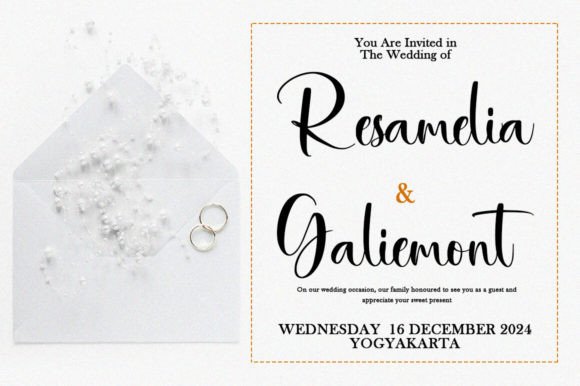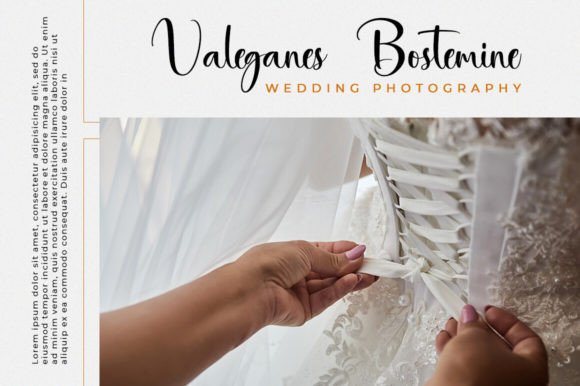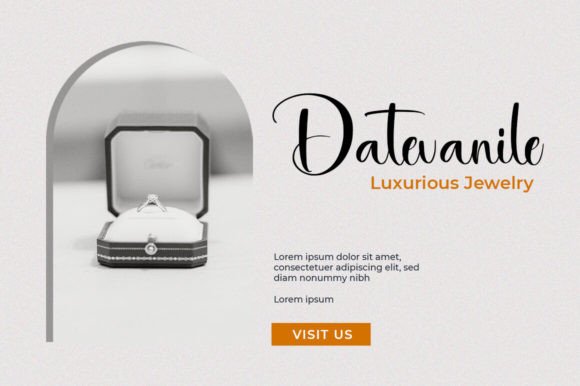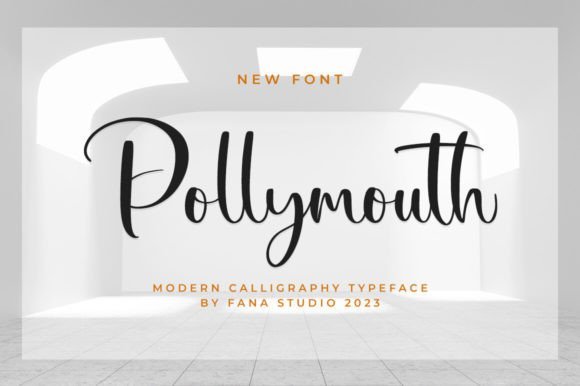
Introduction to Pollymouth Font
Introducing Pollymouth Script, a stylish script font.
This beautiful font offers your personal touch to your latest art project with an elegant, classy and modern look The Pollymouth Script offers gorgeous typographic perfect for many different projects such as logos & branding, invitations, stationery, wedding designs, social media posts, advertisements, product packaging, product designs, labels, photography, watermarks, special events or anything that needs handwriting taste.